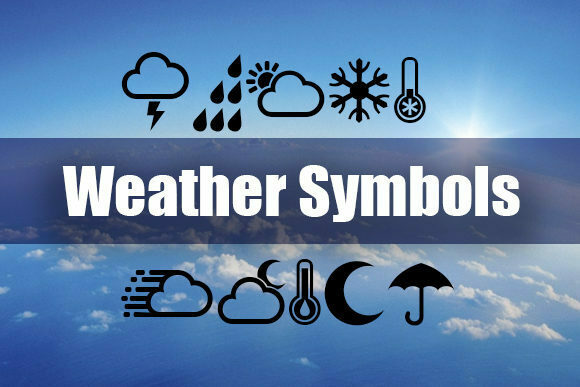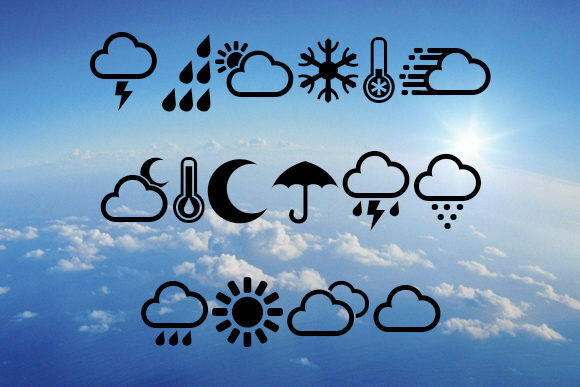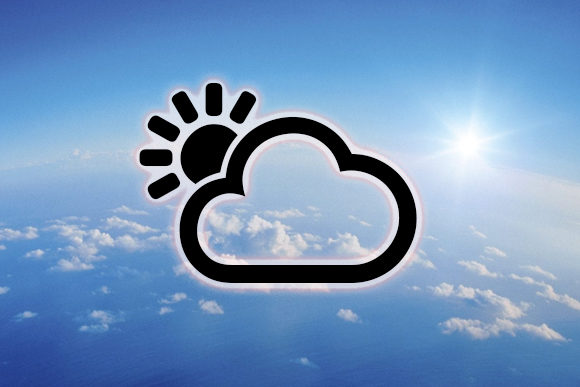
Weather Symbols Font
“Weather Symbols” is a dingbat font that features 16 weather symbols. This font can be a great tool to enhance your designs and add visual elements related to weather conditions. Here are some ways you can have fun and explore the endless possibilities of the “Weather Symbols” font:
1. Weather Forecasts: If you’re creating weather forecasts for a website, app, or presentation, the “Weather Symbols” font can be a valuable resource. Use the symbols to represent different weather conditions such as sunny, cloudy, rainy, snowy, windy, and more. Incorporate the symbols alongside text to provide a visual representation of the forecasted weather.
2. Weather-related Graphics: If you’re designing graphics or illustrations related to weather, the “Weather Symbols” font can be a useful asset. Whether you’re creating infographics, posters, or social media graphics, the symbols can add a thematic touch and make your visuals more engaging. Combine the symbols with other design elements and typography to create unique and eye-catching compositions.
3. Educational Materials: The “Weather Symbols” font can be a valuable tool for creating educational materials, especially those related to weather and meteorology. Use the symbols to teach children or students about different weather conditions and how to interpret weather symbols. Create worksheets, flashcards, or interactive activities that incorporate the symbols to make learning fun and interactive.
4. Weather-themed Stationery: If you’re designing stationery or invitations for weather-themed events or occasions, the “Weather Symbols” font can be a great addition. Incorporate the symbols into the design to set the tone and theme of the event. For example, use raindrop symbols for a rainy day-themed party invitation or sun symbols for a summer-themed event.
5. Web and App Design: If you’re designing a weather-related website or app, the “Weather Symbols” font can be used to represent weather conditions in a visually appealing way. Use the symbols as icons or buttons to indicate different weather conditions and make the user interface more intuitive and user-friendly.
Remember to experiment with different combinations and variations of the weather symbols in the font to create unique and visually appealing designs. Consider using different colors, sizes, and placements to add visual interest and create a cohesive design.
In summary, “Weather Symbols” is a dingbat font that contains 16 weather symbols. This font can be a fun and useful tool for enhancing your designs related to weather conditions. Whether you’re creating weather forecasts, educational materials, graphics, or stationery, the “Weather Symbols” font can add a thematic and visual element to your projects. Enjoy exploring the endless variations and possibilities this font offers!